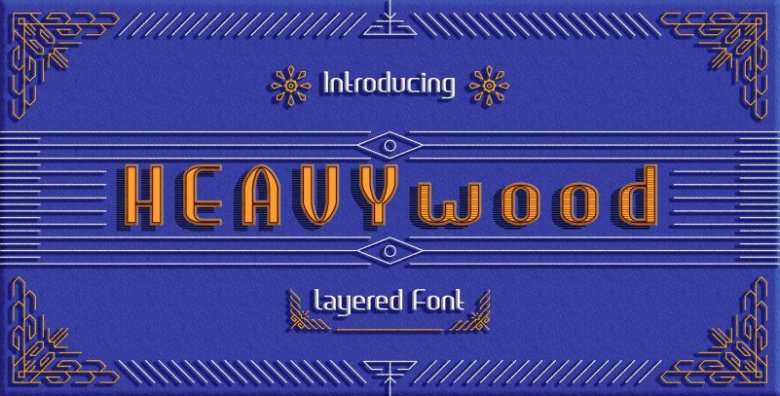
Heavywood Layered Display Font
Heavywood is a layered display font type. It is suitable for branding projects, Logo, Sosial media post, Advertisement, Product packaging, Product design, Label, Invitations, Poster, Banner, and other design projects.